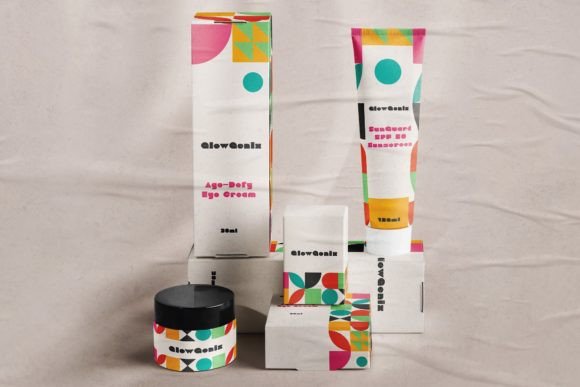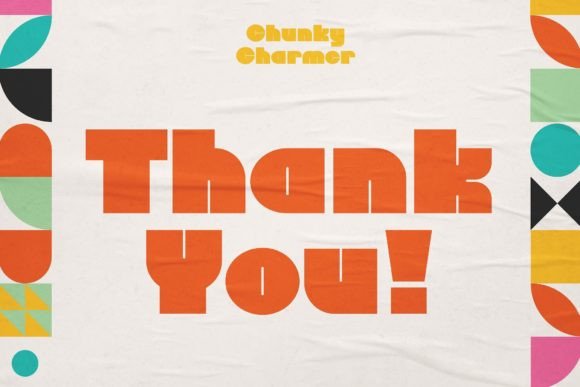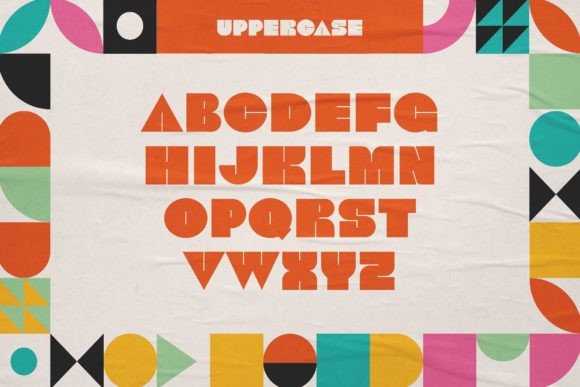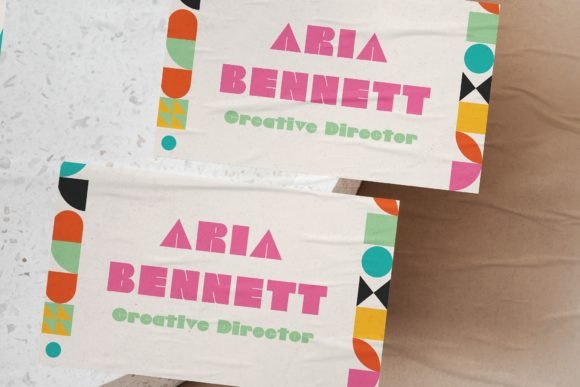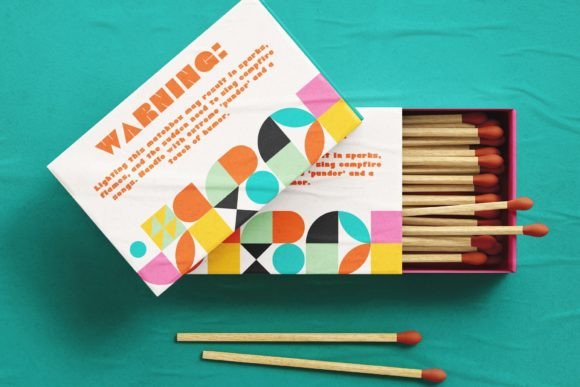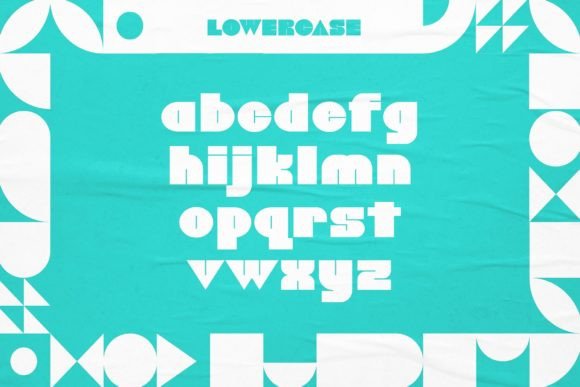
Introduction to Chunky Charmer Font
Meet Chunky Charmer, where boldness and charisma collide to craft a statement that’s impossible to ignore.
This typeface is the embodiment of audacity, showcasing thick, robust strokes that demand attention and exude confidence Every character in Chunky Charmer is an anthem of assertion.
Key Features of Chunky Charmer Font
Why Choose Chunky Charmer Font?
Chunky Charmer Font offers exceptional quality and versatility, making it a valuable addition to your design toolkit. Whether you’re creating for personal projects or commercial use, Chunky Charmer Font delivers professional results.